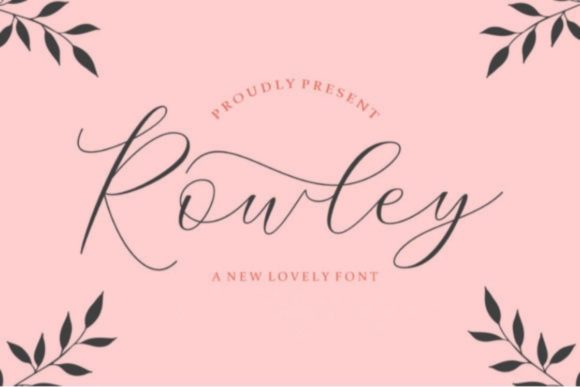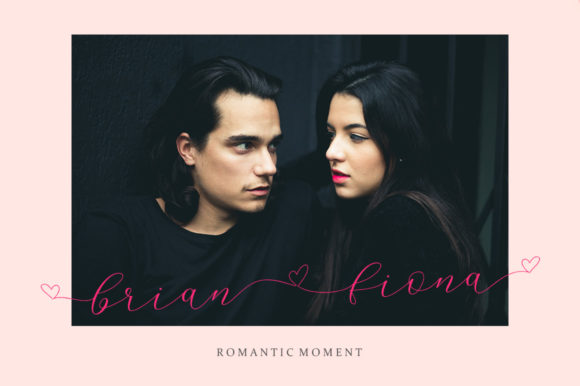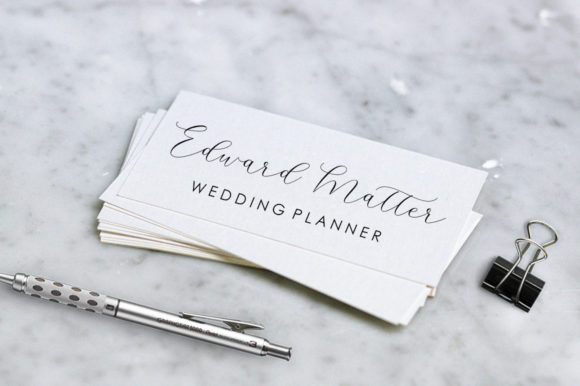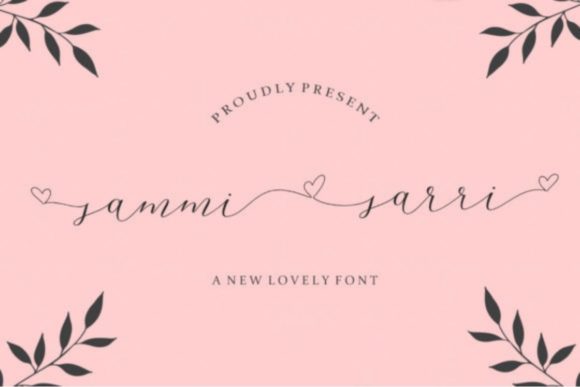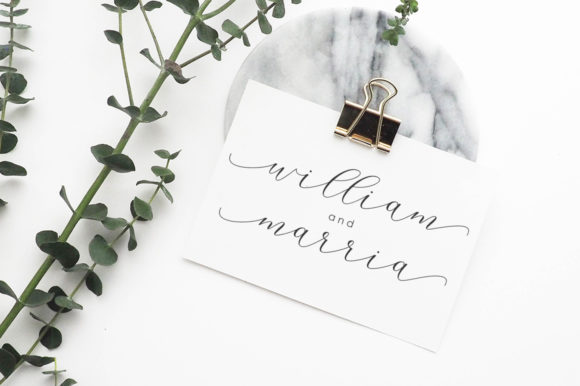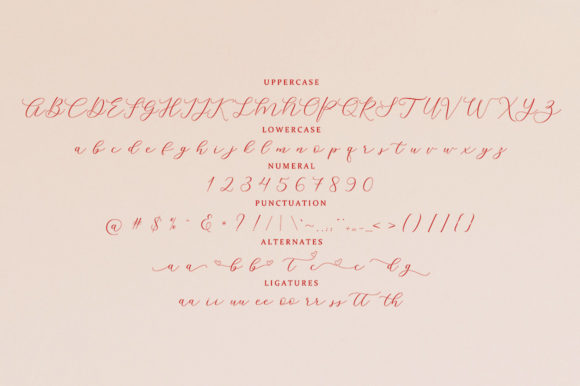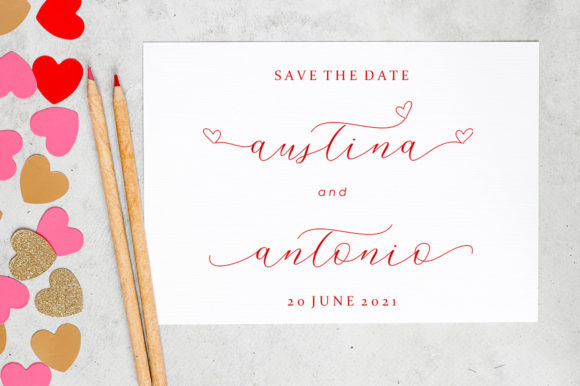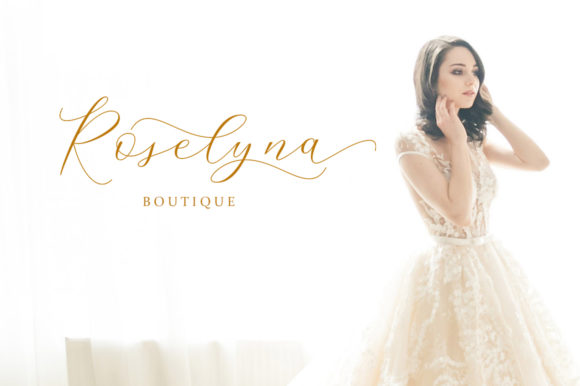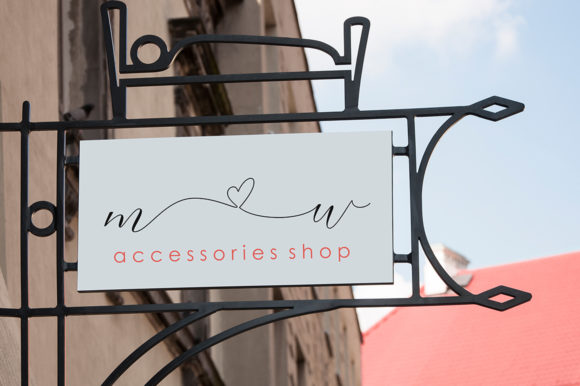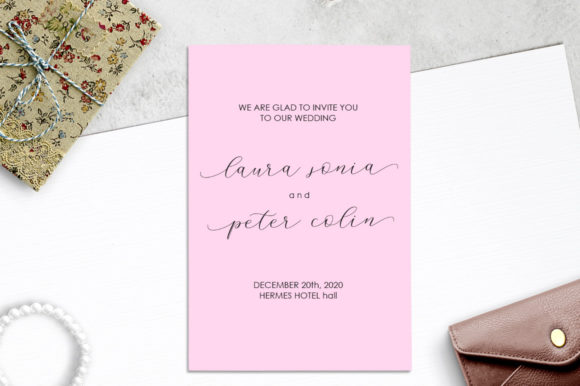
Rowley Script Font
Rowley Script is a lovely and delicate handwritten font. It looks gorgeous on wedding invitations, thank you cards, quotes, greeting cards, logos, business cards and every other design which needs a handwritten touch. It features a varying baseline, smooth lines, gorgeous glyphs and stunning alternates.